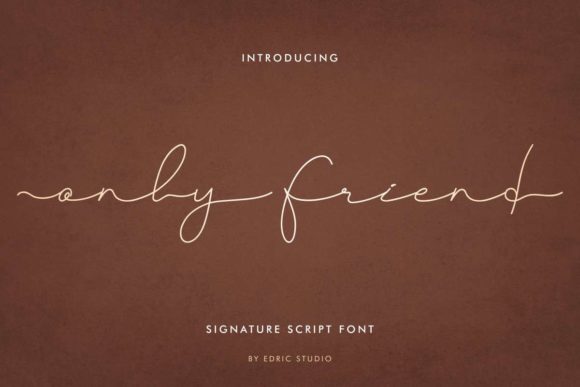
**Only Friend: The Script Font That Will Make Your Brand Sparkle**
In a world of digital noise, your brand needs a voice that stands out. A voice that speaks to your audience in a way that is both personal and unforgettable. Only Friend, our exquisite script font, is the perfect tool to help you create a brand identity that shines.
Picture this: your website, adorned with the graceful curves and delicate strokes of Only Friend. Your social media posts, alive with the charm and elegance of this handwritten font. Your marketing materials, infused with a touch of sophistication that leaves a lasting impression.
With Only Friend, you'll create designs that captivate and inspire. Its beautiful and well-balanced characters dance across the page, creating a visual harmony that draws the eye and captivates the heart.
**Why Choose Only Friend?**
* **A Touch of Elegance:** Only Friend's flowing lines and refined details add a touch of sophistication to any design.
* **Versatile Charm:** From fashion websites to wedding invitations, Only Friend's versatility knows no bounds. It complements a wide range of design styles, making it the perfect choice for any project.
* **Unforgettable Impact:** Only Friend's unique personality leaves a lasting impression on your audience. It's a font that people remember, a font that makes your brand unforgettable.
**Experience the Only Friend Difference**